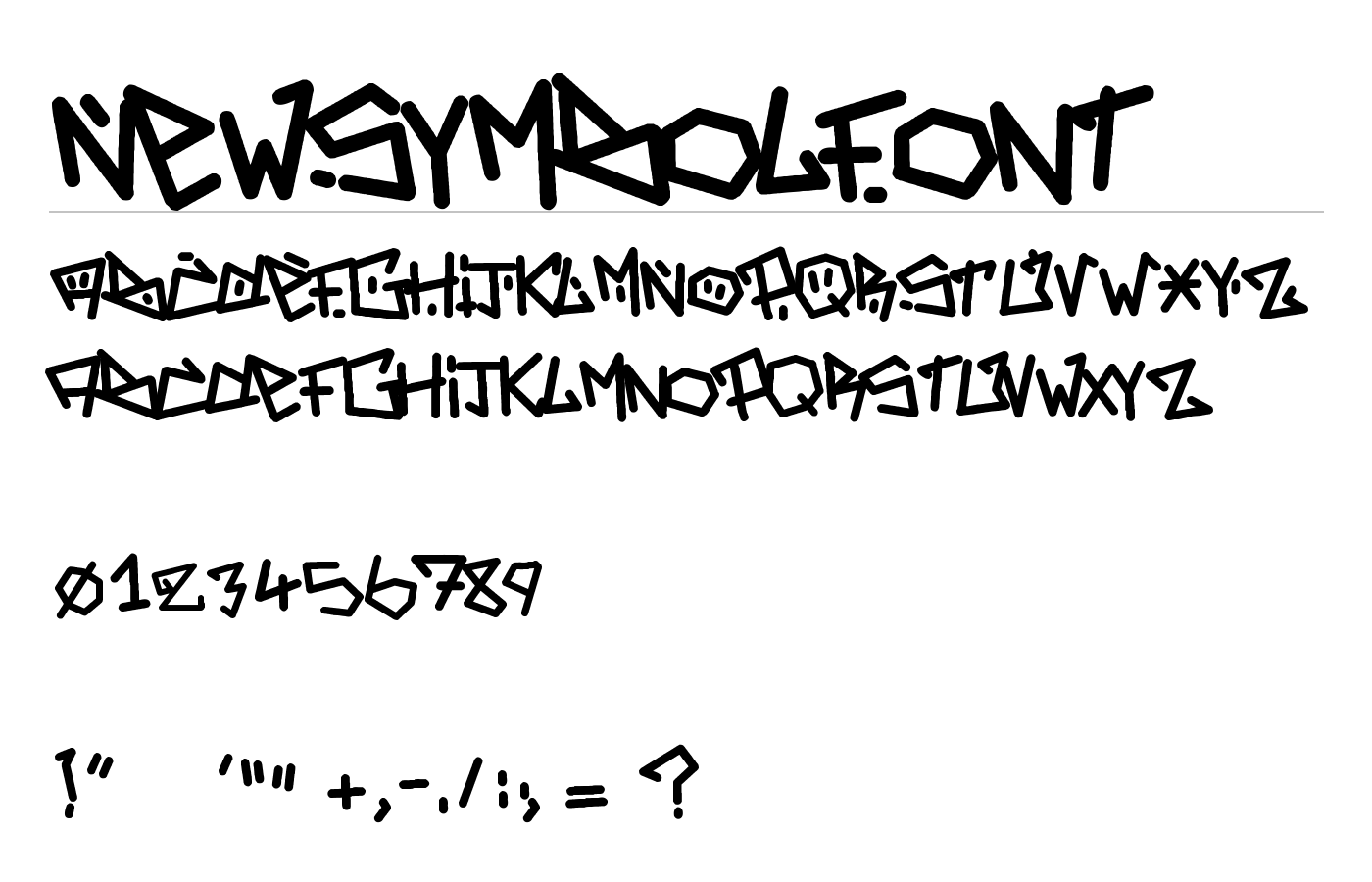
Adrenaline : Zero is a bold, edgy sans-serif font with a distinct graffiti-inspired style, featuring sharp angles and irregular shapes that evoke an urban, energetic vibe. Its playful yet rebellious character makes it perfect for streetwear branding, posters, and any design needing a dynamic, unconventional touch. This font stands out best in headlines and logos, where its strong personality can shine without sacrificing readability.
Adrenaline : Zero Font